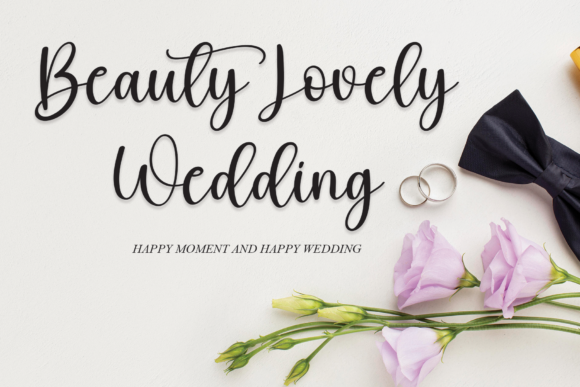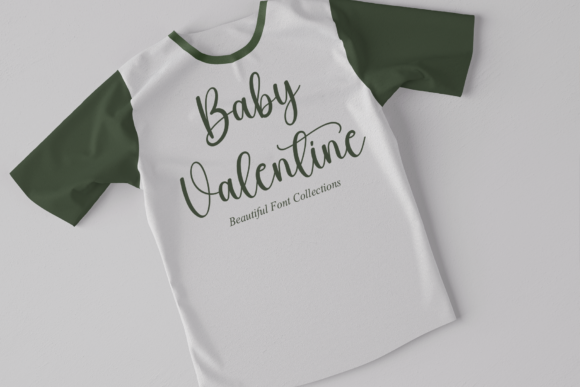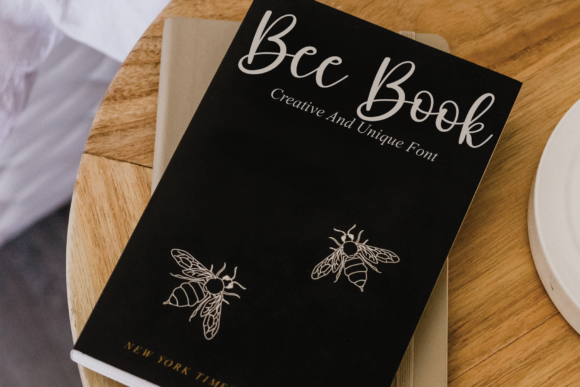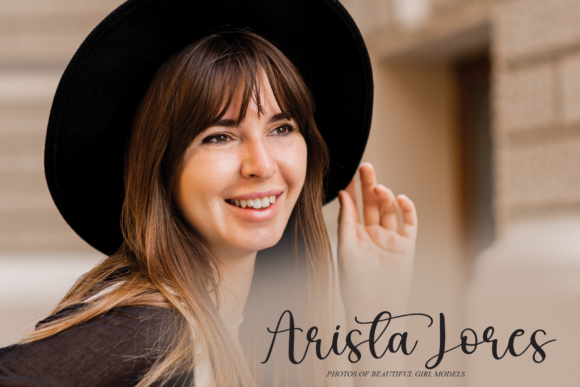
Introducing February Font: Elevate Your Design with a Touch of Elegance
Are you on the lookout for a font that can add a dash of sophistication and luxury to your design projects? Look no further than February Font, a beautiful and light handwritten font that is sure to make your designs stand out. With its unique feel and stunning impact, February Font is the perfect choice for designers and crafters who want to create something truly special.
The Characteristics of February Font
February Font is a handwritten font that boasts a light and airy feel, making it perfect for designs that require a touch of elegance and sophistication. Its unique characteristics include:
- Beautifully crafted letters: Each letter in February Font has been carefully crafted to ensure that it is not only aesthetically pleasing but also highly legible.
- Light and airy feel: The font has a light and airy feel that makes it perfect for designs that require a touch of elegance and sophistication.
- Unique feel: February Font has a unique feel that sets it apart from other fonts. Its subtle imperfections and variations in line width give it a human touch that is sure to make your designs stand out.
Why Choose February Font?
So, why should you choose February Font for your design projects? Here are just a few reasons:
- Adds a touch of luxury: February Font is the perfect choice for designers who want to add a touch of luxury to their designs. Its elegant and sophisticated feel makes it perfect for high-end designs.
- Versatile: February Font is a versatile font that can be used for a wide range of design projects, from branding and packaging to wedding invitations and more.
- Easy to read: Despite its elegant and sophisticated feel, February Font is highly legible and easy to read, making it perfect for designs that require a clear and concise message.
Using February Font in Your Design Projects
February Font is easy to use and can be incorporated into a wide range of design projects. Here are a few ideas to get you started:
- Branding and packaging: Use February Font to add a touch of luxury to your branding and packaging designs. Its elegant and sophisticated feel makes it perfect for high-end brands.
- Wedding invitations: February Font is the perfect choice for wedding invitations and other wedding-related designs. Its romantic and elegant feel makes it perfect for the occasion.
- Stationery and cards: Use February Font to create beautifully designed stationery and cards that are sure to impress.
Tips for Getting the Most Out of February Font
Here are a few tips for getting the most out of February Font:
- Experiment with different colors: February Font looks great in a wide range of colors, so don’t be afraid to experiment and find the perfect color for your design.
- Use it with other fonts: February Font can be paired with other fonts to create a unique and interesting design. Try pairing it with a bold font for a striking contrast.
- Pay attention to spacing: Make sure to pay attention to the spacing between letters and words to ensure that your design looks clean and elegant.
In conclusion, February Font is a beautiful and light handwritten font that is sure to elevate your design projects to the next level. Its unique feel and stunning impact make it perfect for designers and crafters who want to create something truly special. With its versatility, elegance, and sophistication, February Font is the perfect choice for a wide range of design projects. So why wait? Download February Font today and start creating your own stunning designs!